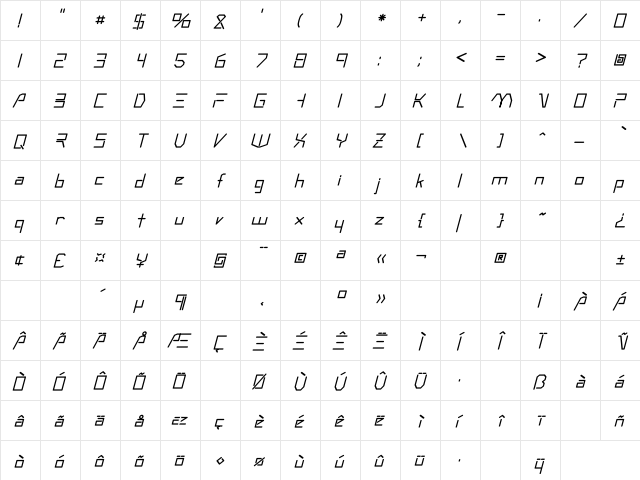
Rsandromed italic Italic
Design Context for Rsandromed italic Typeface
Rsandromed italic is a composed and adaptable typeface that performs quietly and consistently across a wide range of design contexts. The slanted form adds forward momentum and visual energy.
Pro Tip: Try Rsandromed italic for annotation and caption copy alongside an upright companion — the contrast in angle creates a dynamic but ordered typographic system.